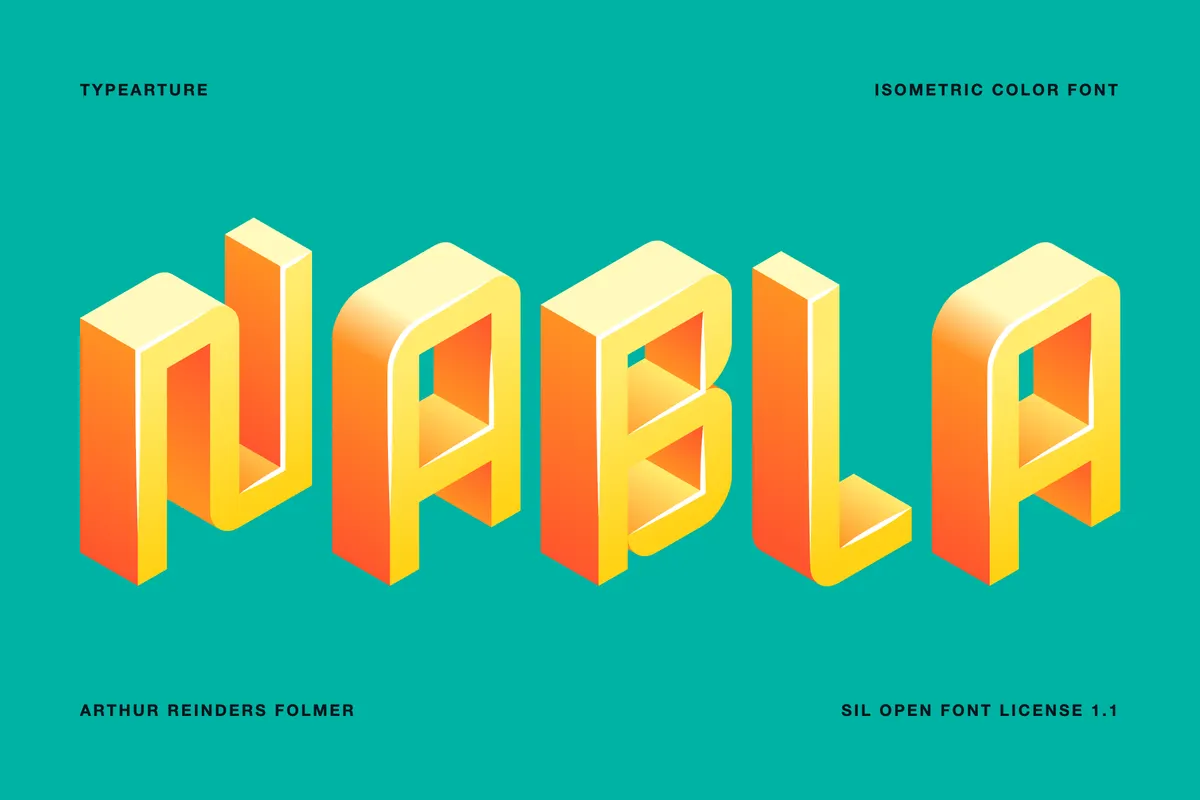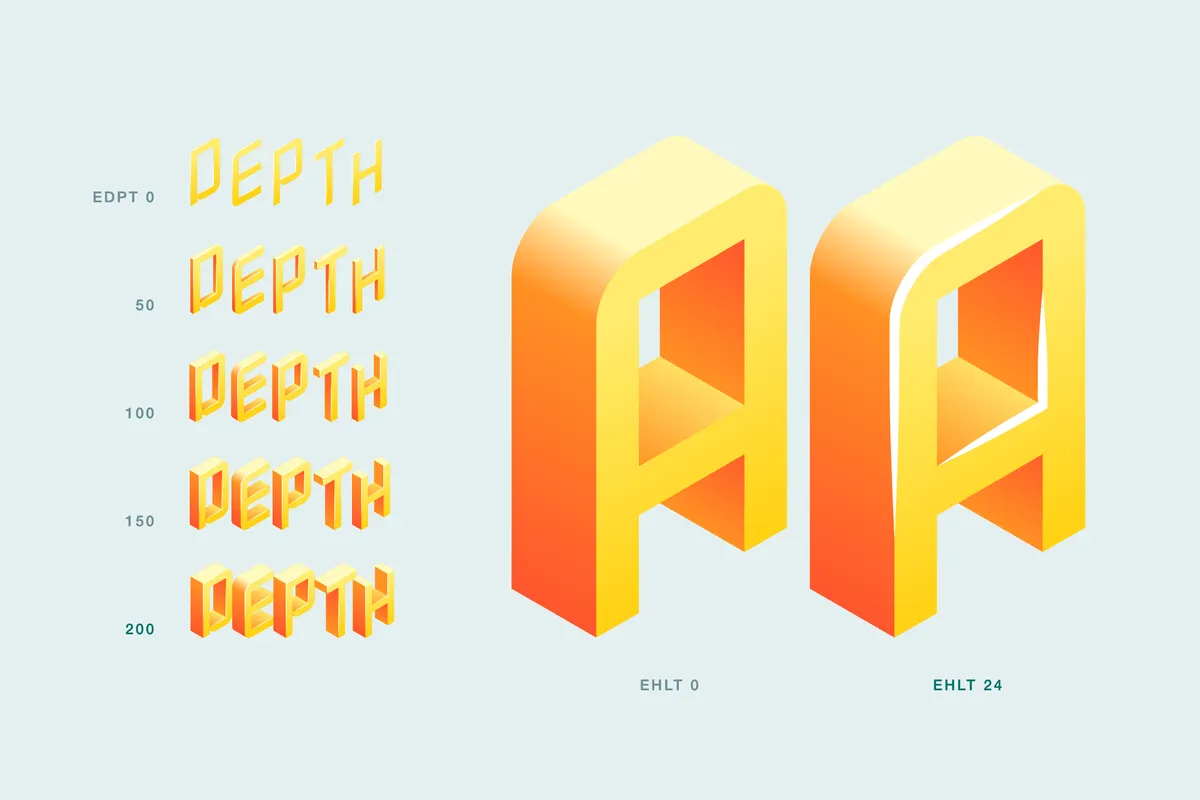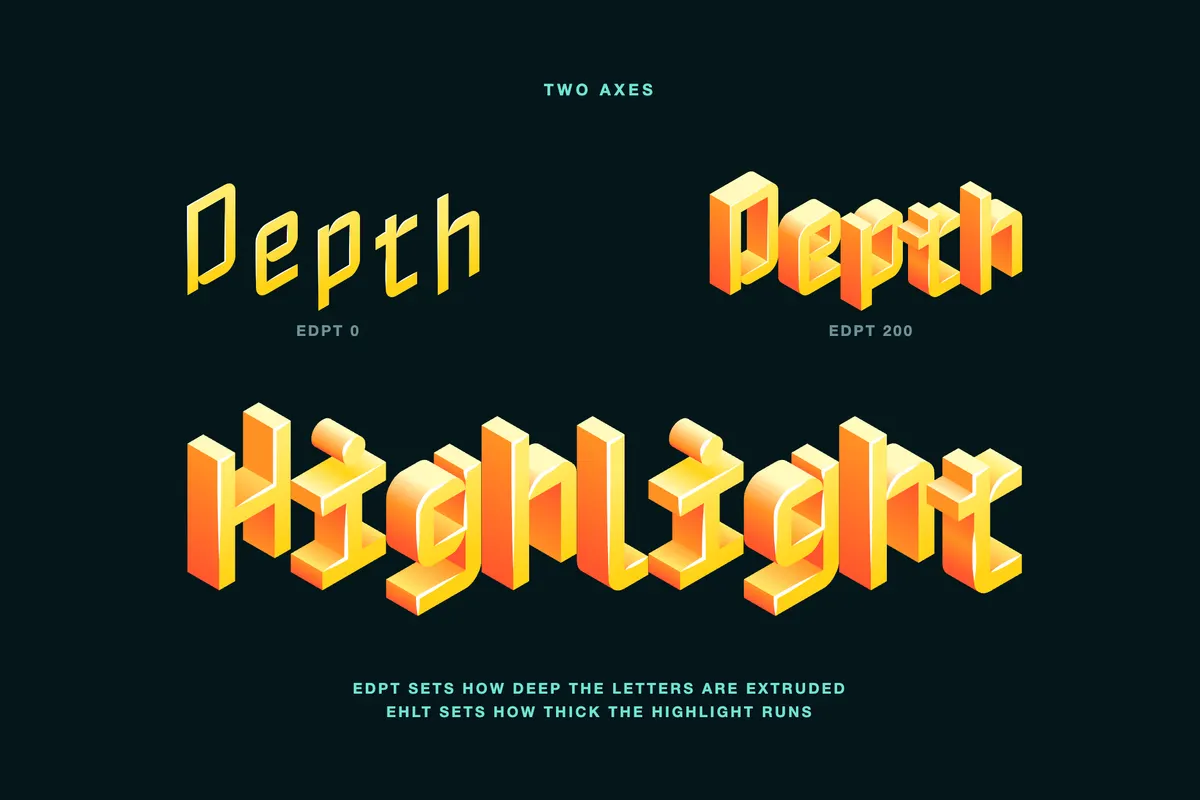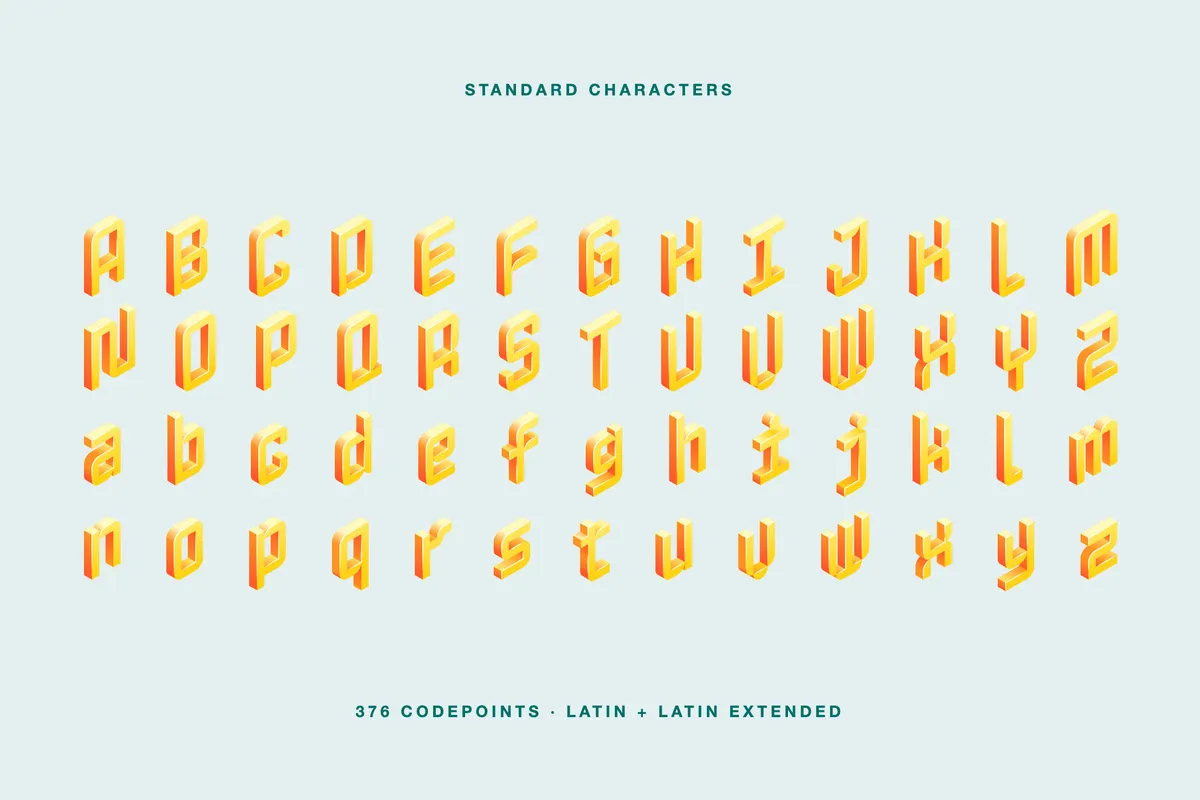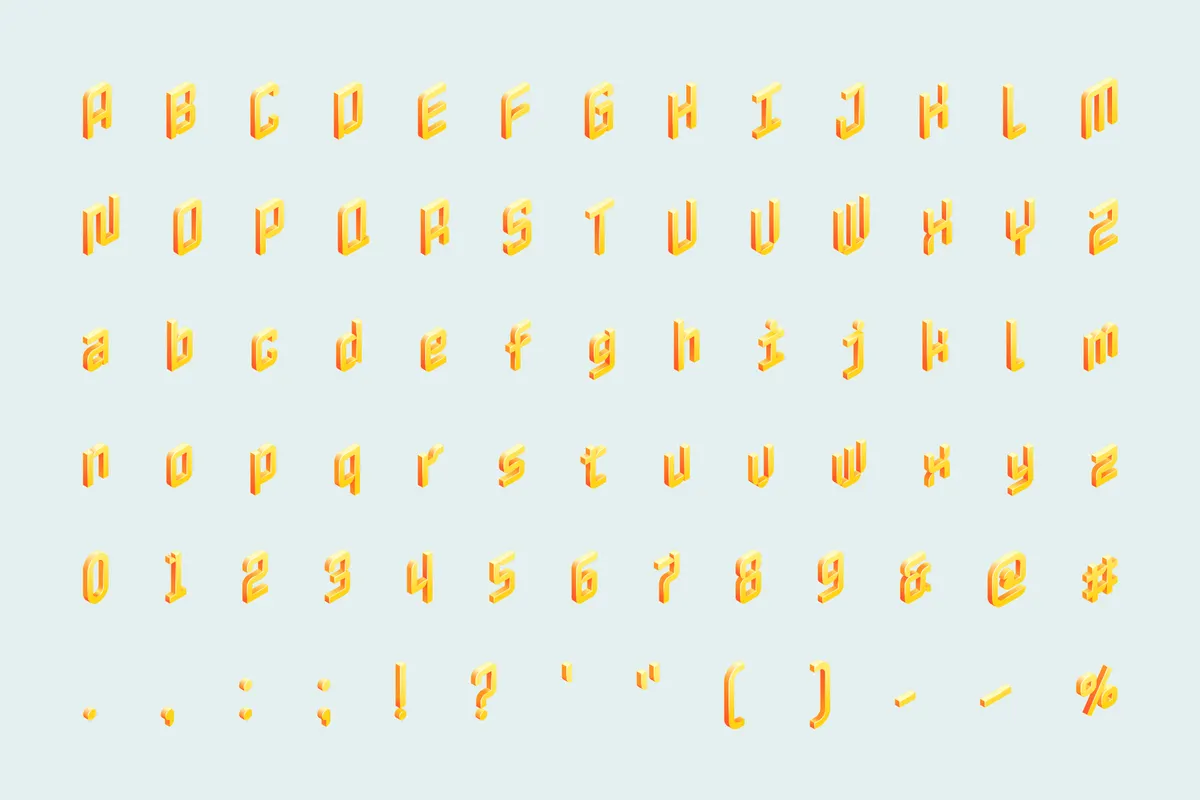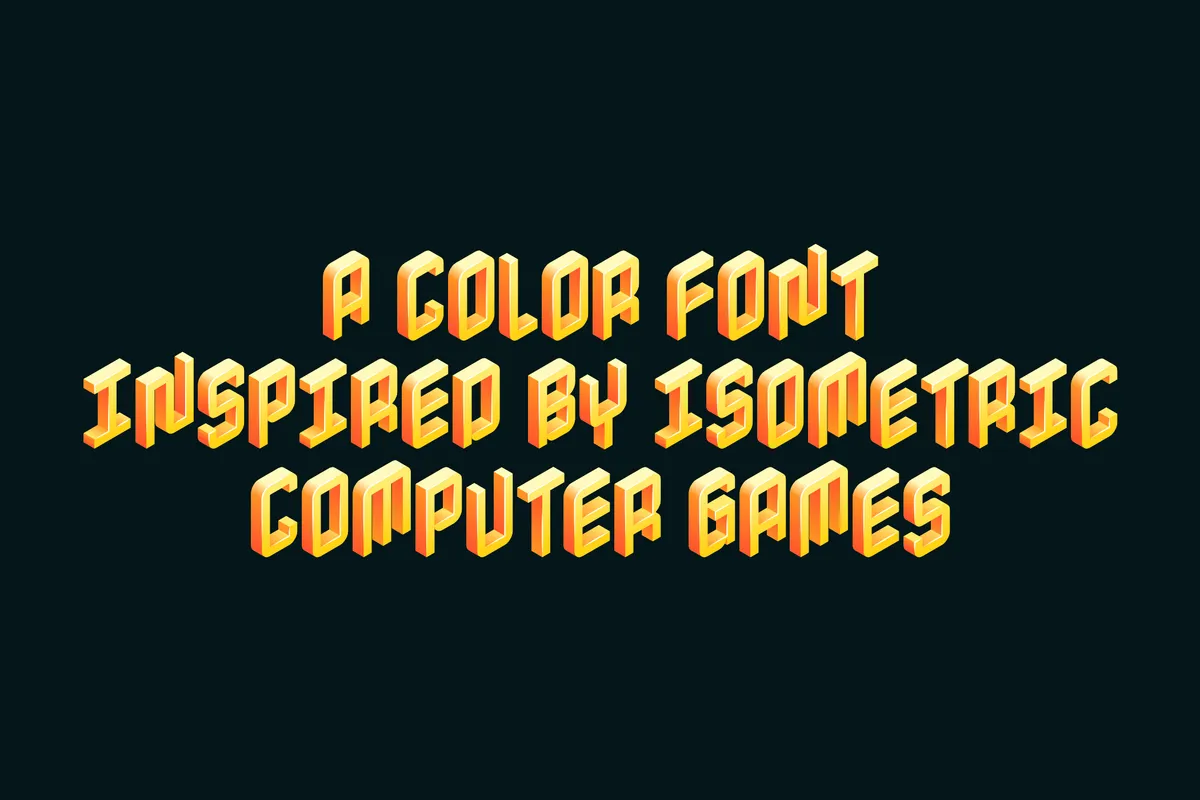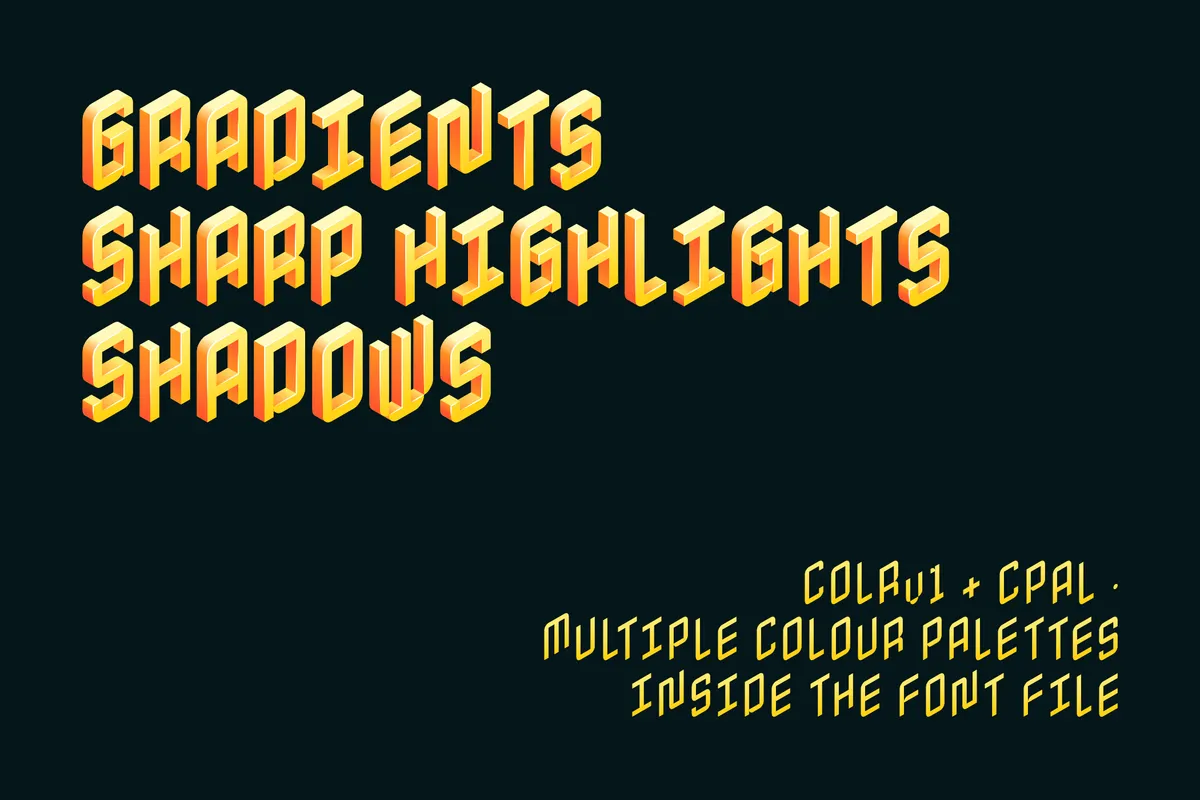
Nabla - Free Isometric Display
Nabla
Nabla is a color display font inspired by isometric computer games. Each letter is an isometric block, and two axes reshape it: one pushes the extrusion depth, the other thickens the highlight.
- variable color font with an extrusion-depth axis and a highlight axis;
- uppercase and lowercase letters;
- numbers, punctuation, and symbols;